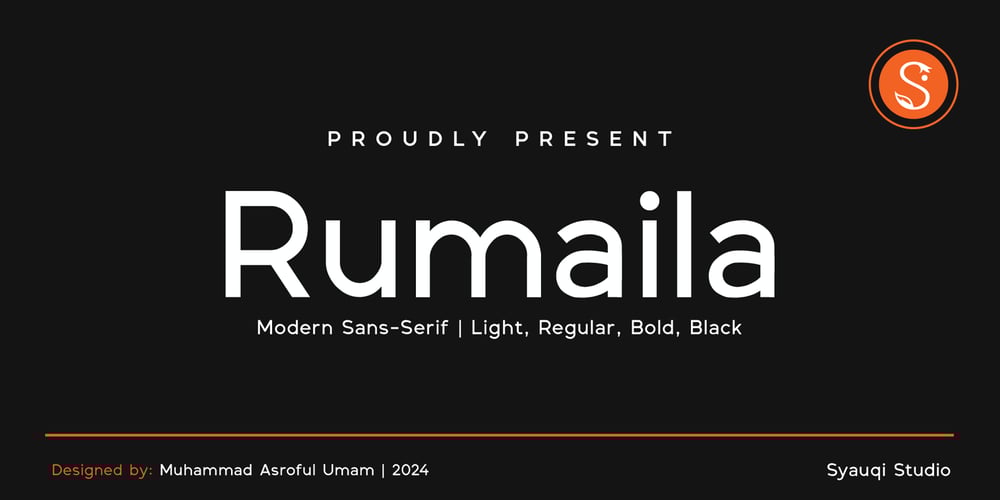
Rumaila
Rumaila font
Rumaila Font Family was designed by Muhammad Asroful Umam and published by Syauqi Studio. Rumaila contains 8 styles and family package options. Rumaila: Modern Sans-Serif EleganceIntroducing Rumaila, a modern sans-serif font that embodies clarity and sophistication. With its clean lines and balanced proportions, Rumaila enhances any design, making it perfect for branding, digital content, and print media.Functionality: Versatile Usage: Ideal for logos, headlines, body text, and user interfaces. Enhanced Readability: Clear character design ensures easy readability across various formats. Contemporary Appeal: Perfect for modern brands seeking a fresh and professional aesthetic. Multiple Weights: Available in various weights to suit different design needs, from bold statements to subtle text. What Included? Uppercase & Lowercase Number & Punctuation Multilingual Supports Elevate your projects with Rumaila—where simplicity meets elegance.